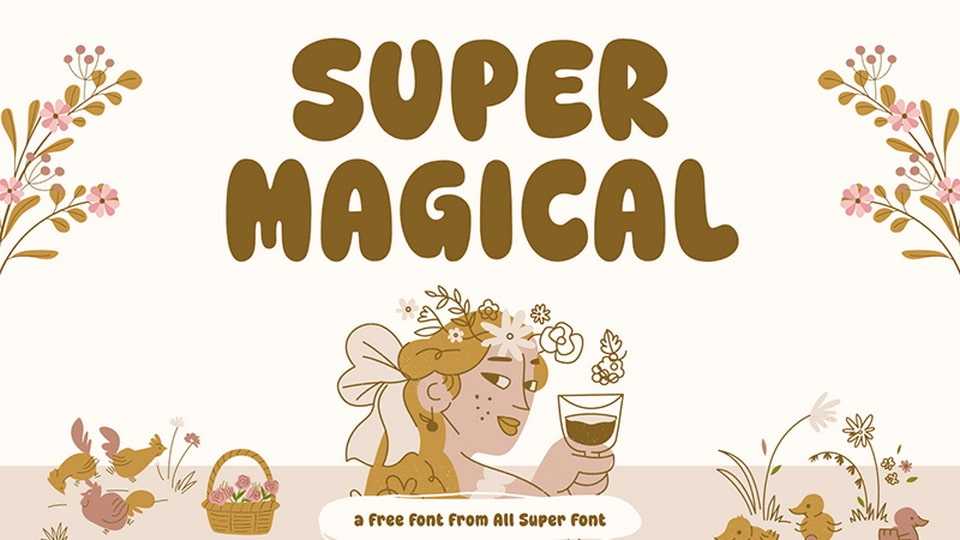
Download Super Magical font, a warm and smooth hand-crafted cartoon typeface designed to bring friendliness and charm to your designs with its soft curves and playful letterforms.